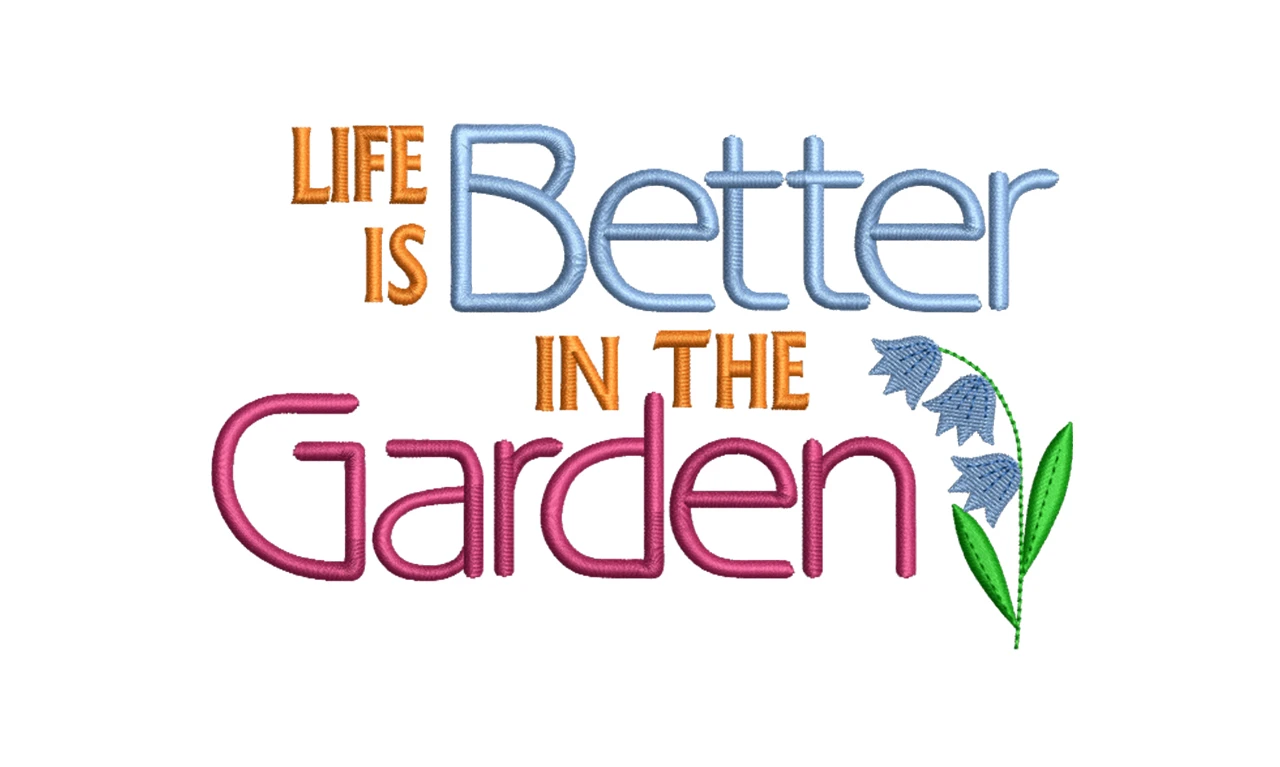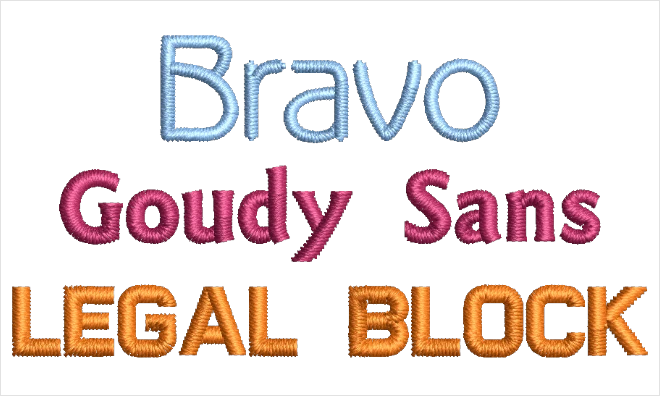
Font Pack #16 - Organic Block
If you are looking for an organic style of fonts, this collection is for you. Traditional block lettering, a decorative flared stroke, and a taller font that keeps that “slim” look, you’ll find them all in this collection.
Fonts in this pack
Bravo
A decorative look with an organic feel. Flared stroke at the ends works good when using a 15 degree slant.
Goudy Sans
This font works good up to 40mm. Use where you want taller letters but keeping a narrow satin look. I has a comical feel.
Legal Block
The name says it! All caps where you want that traditional block look